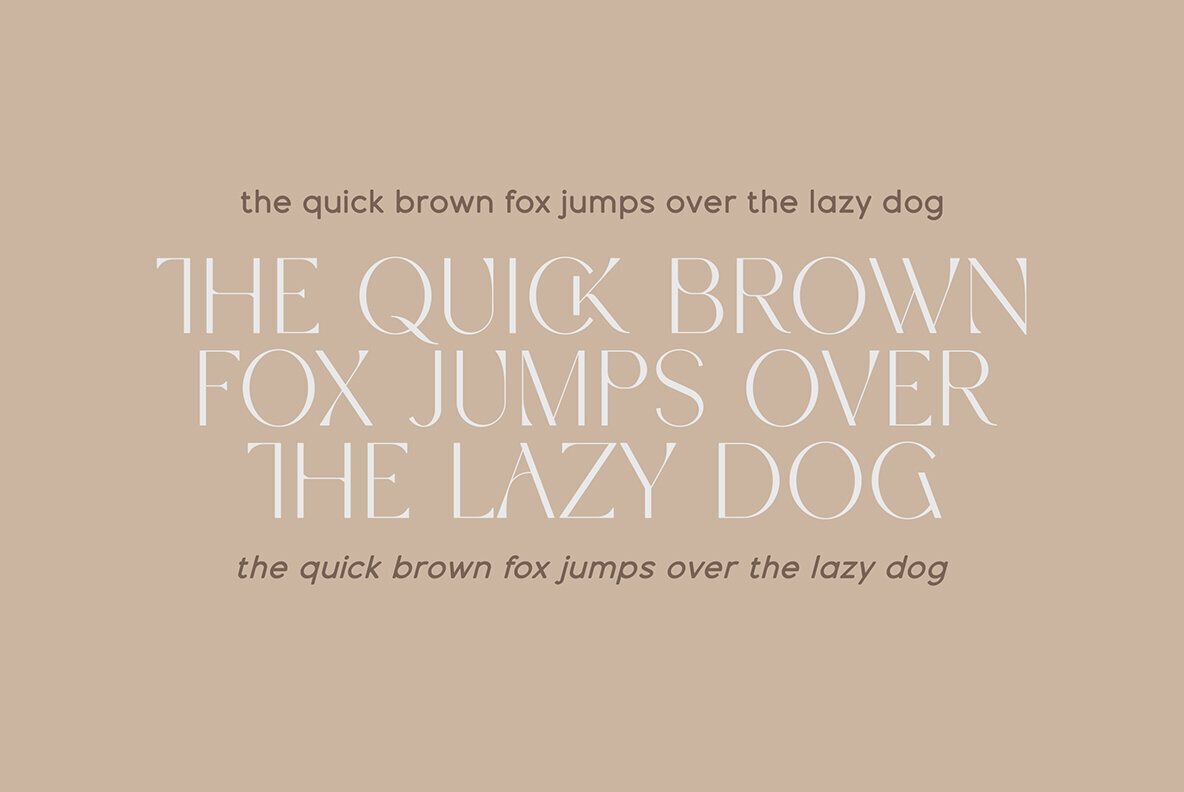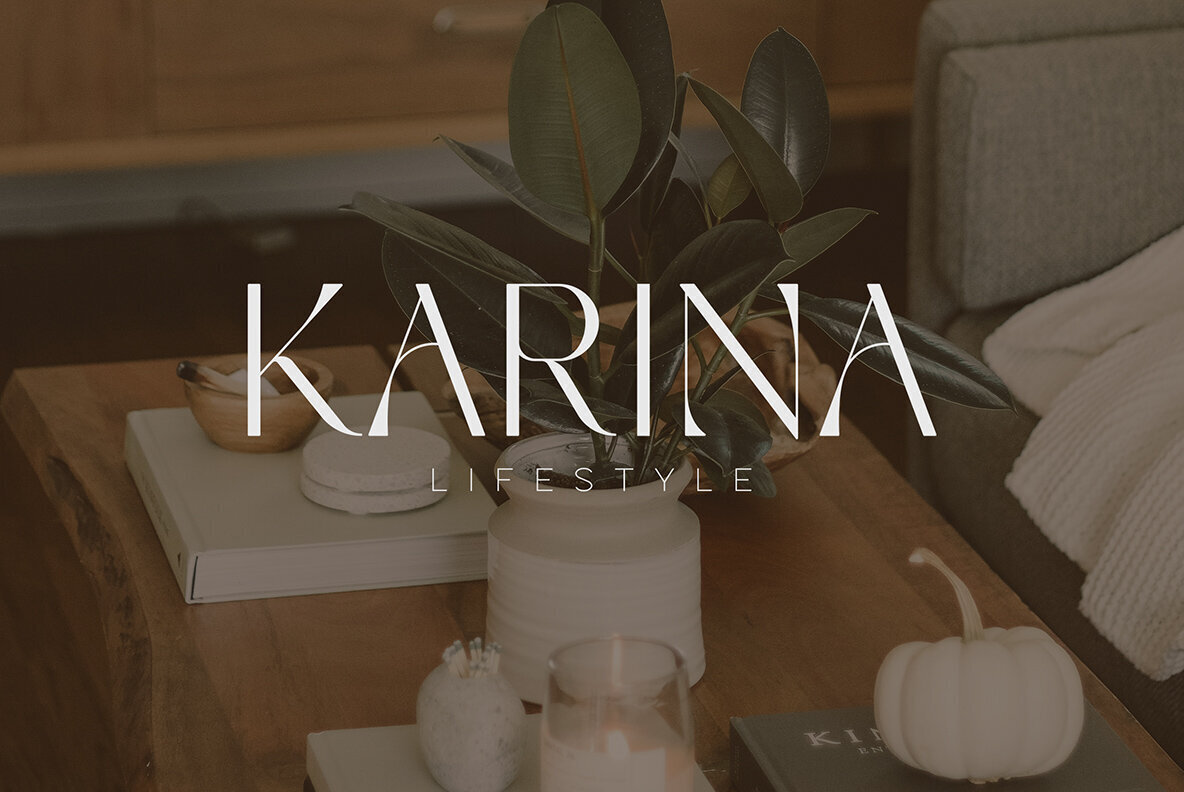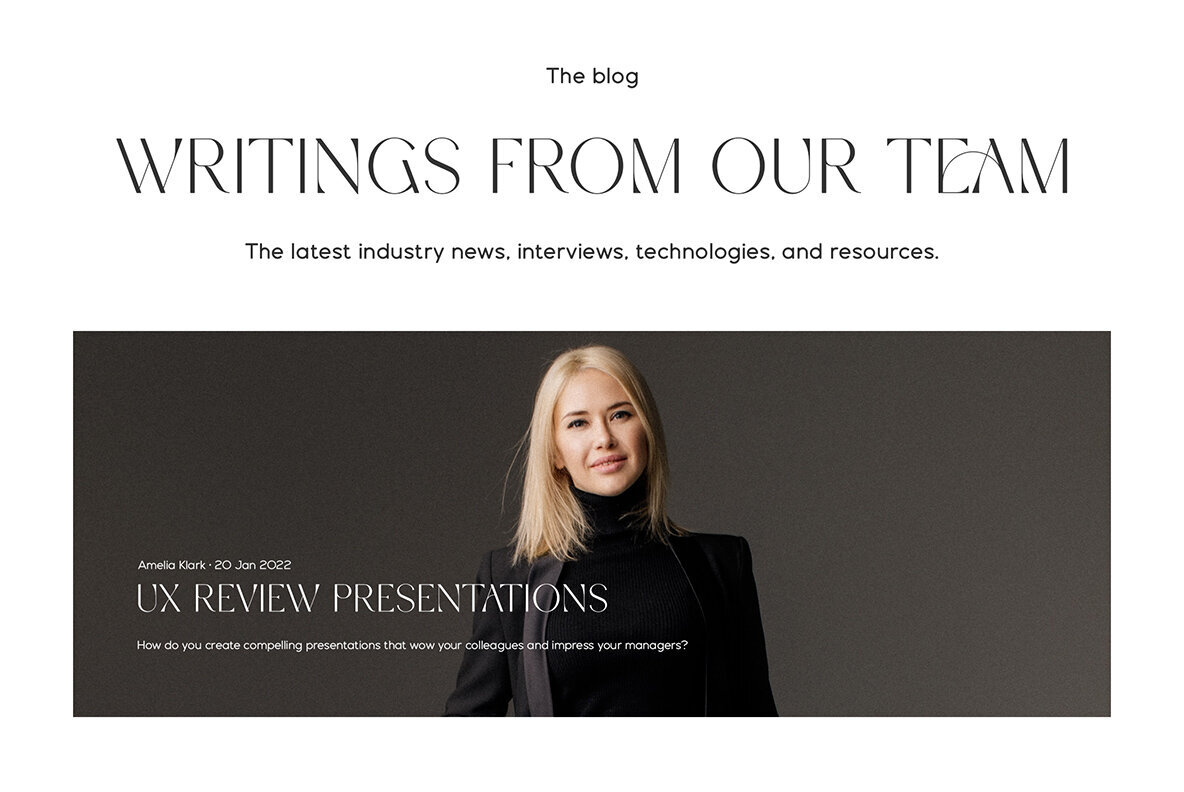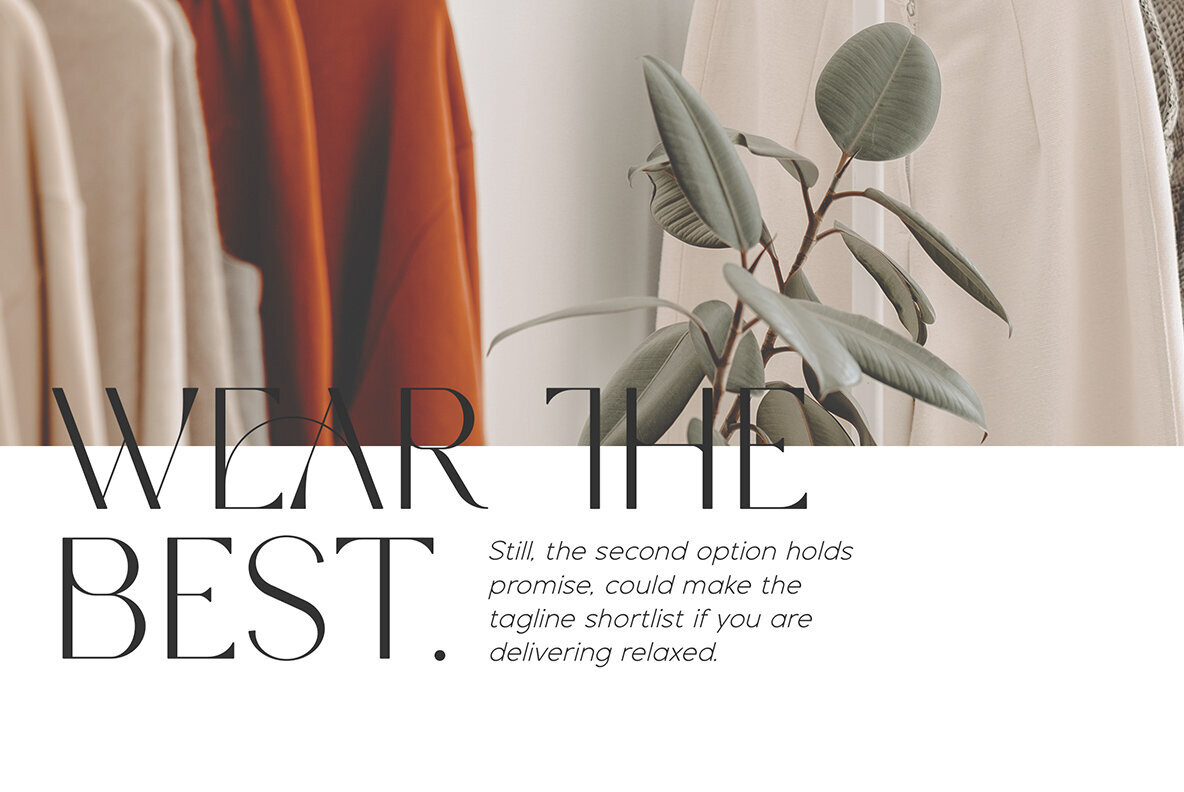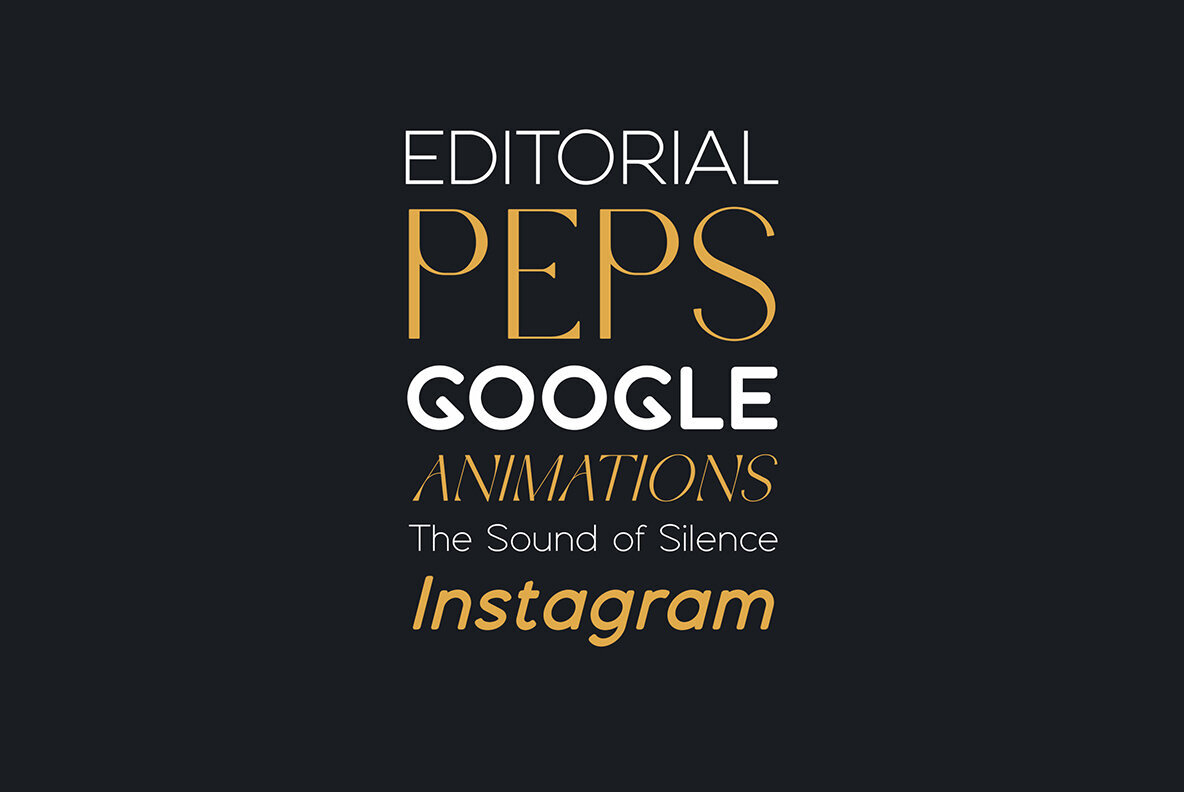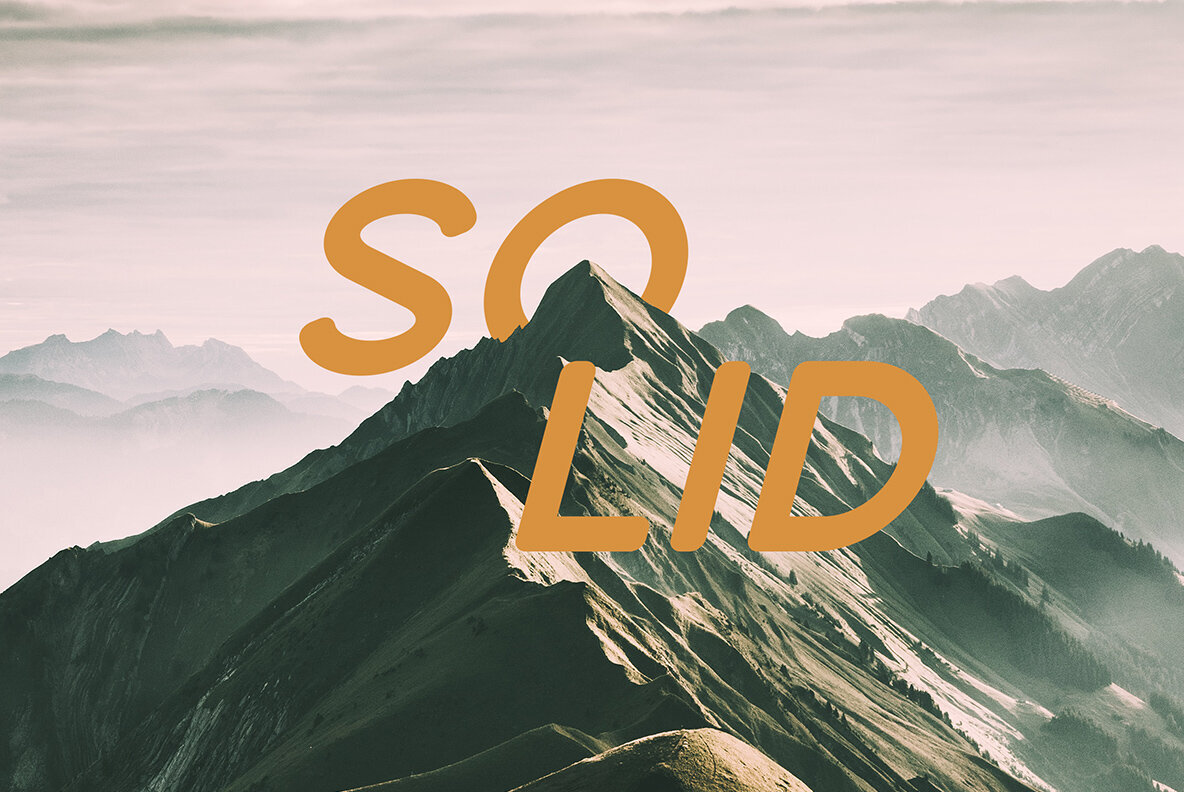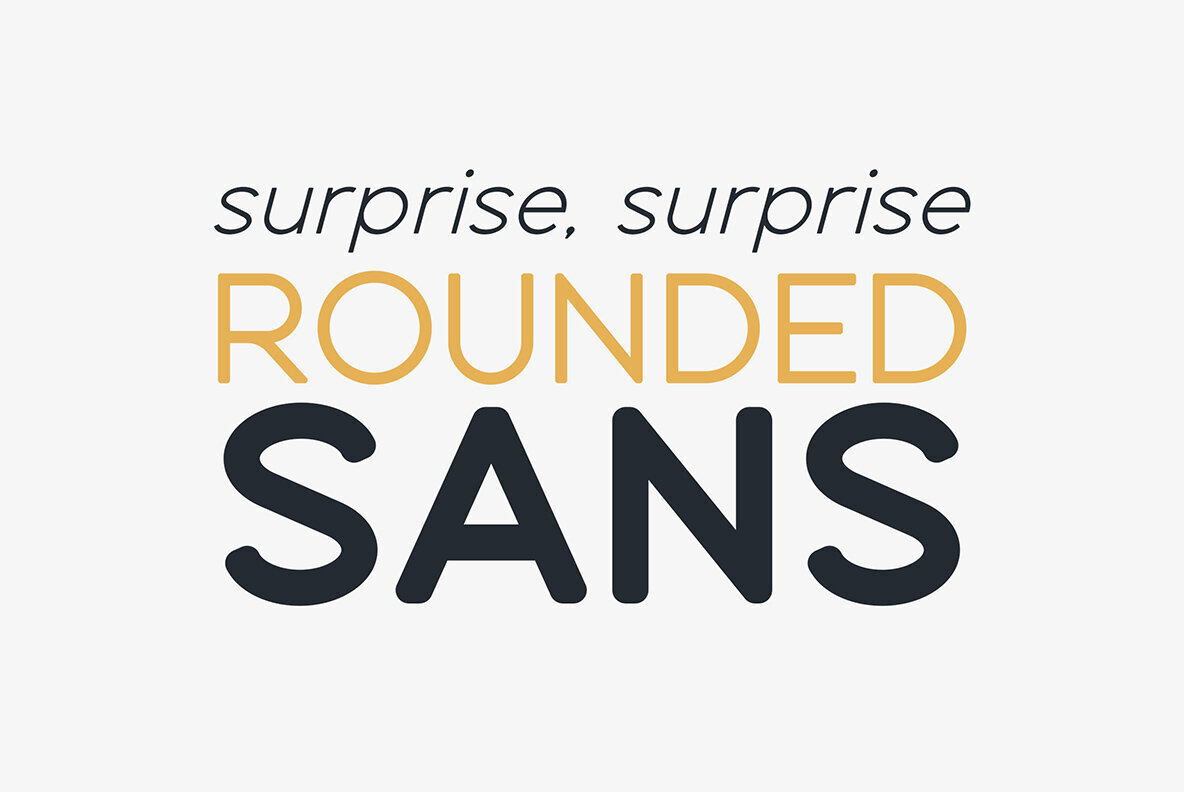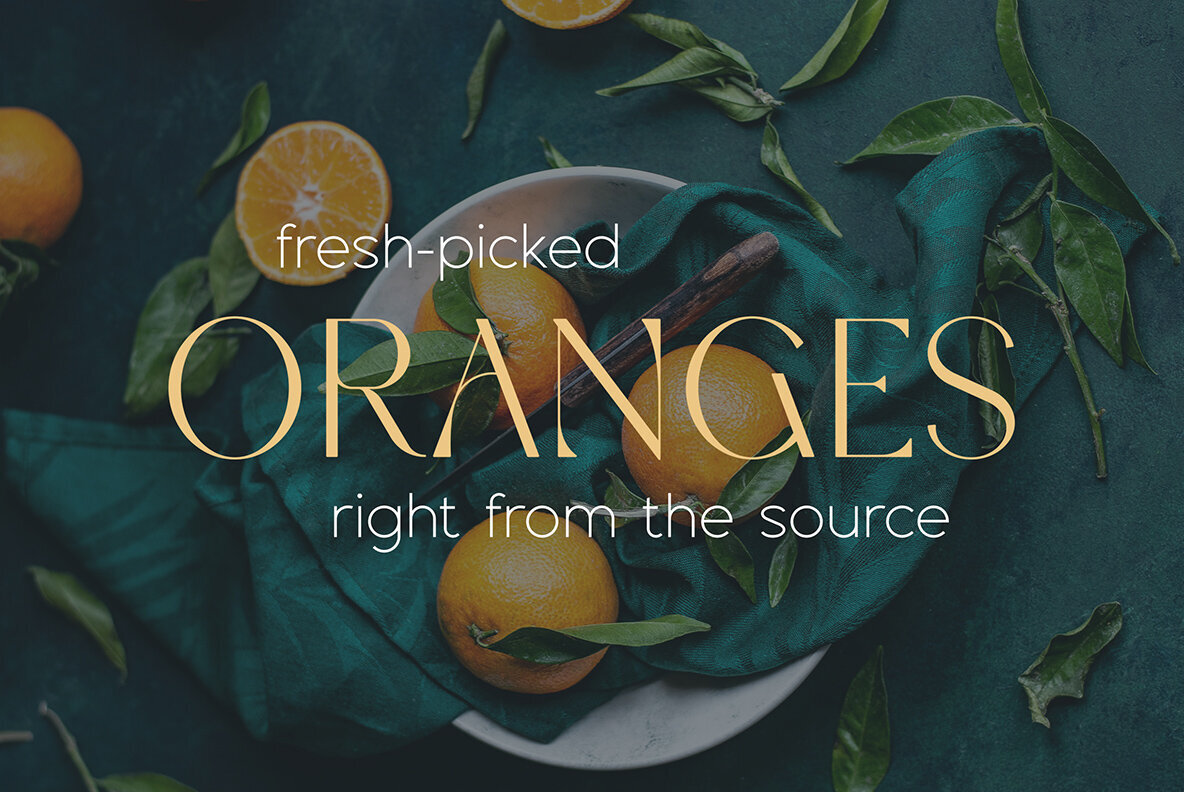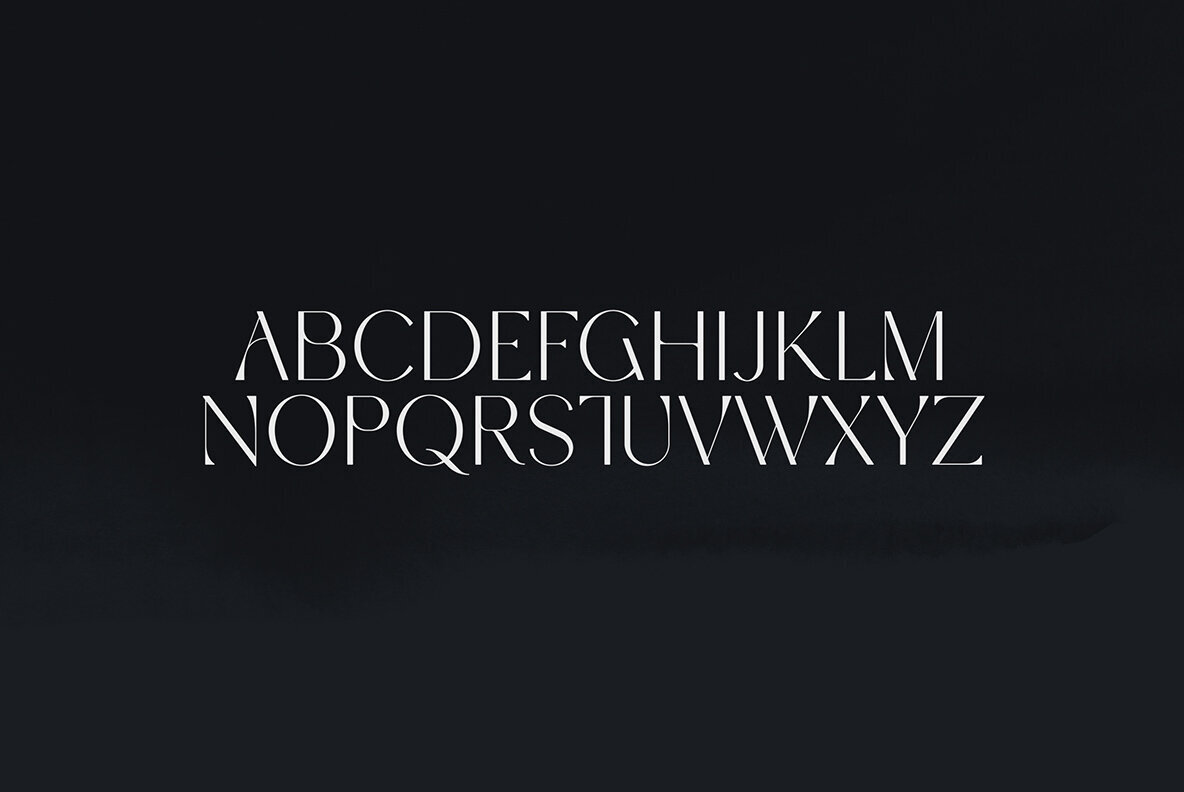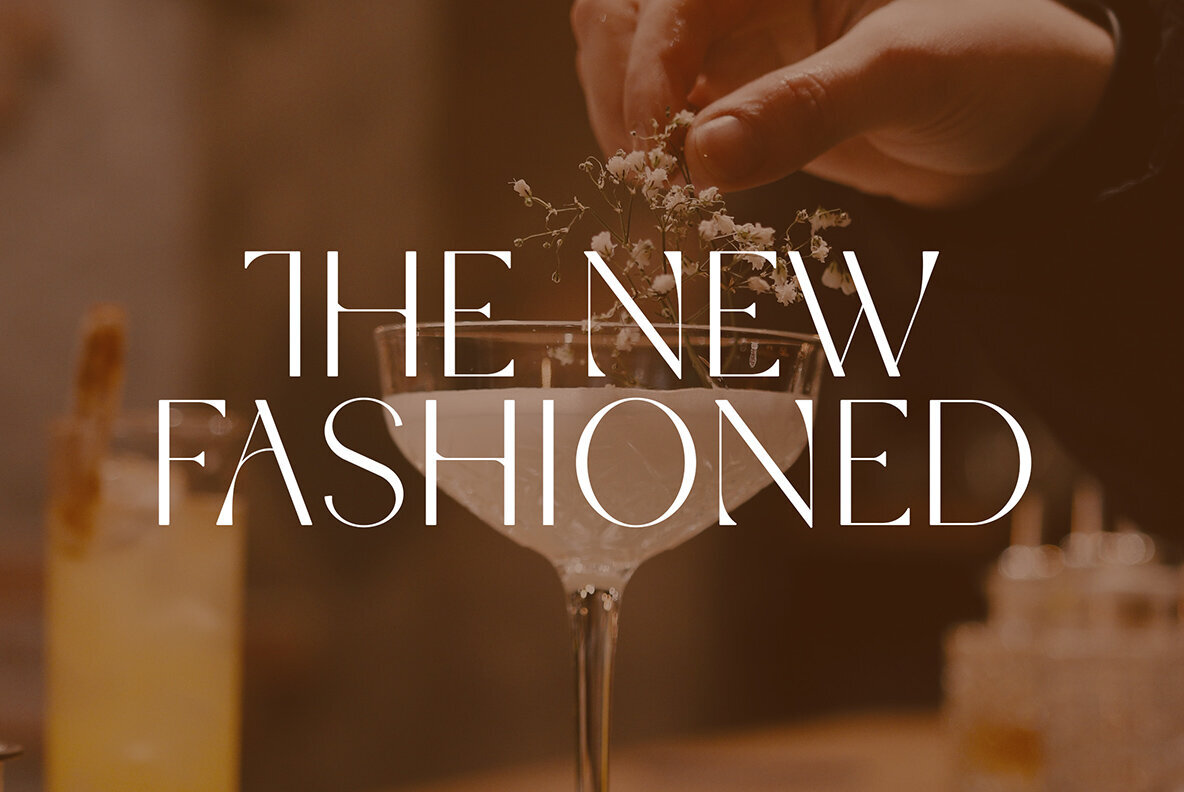
Espial Font
Espial is modern and yet vintage, timeless typeface loaded with 36 font styles (display, regular, italics) 87 languages support and ligature glyphs to make you typography truly unique!
FEATURES
Uppercase, lowercase, numeral, punctuation & Symbol
ligature glyphs
Display font - regular and italic
17 sans serif weights - regular and italics